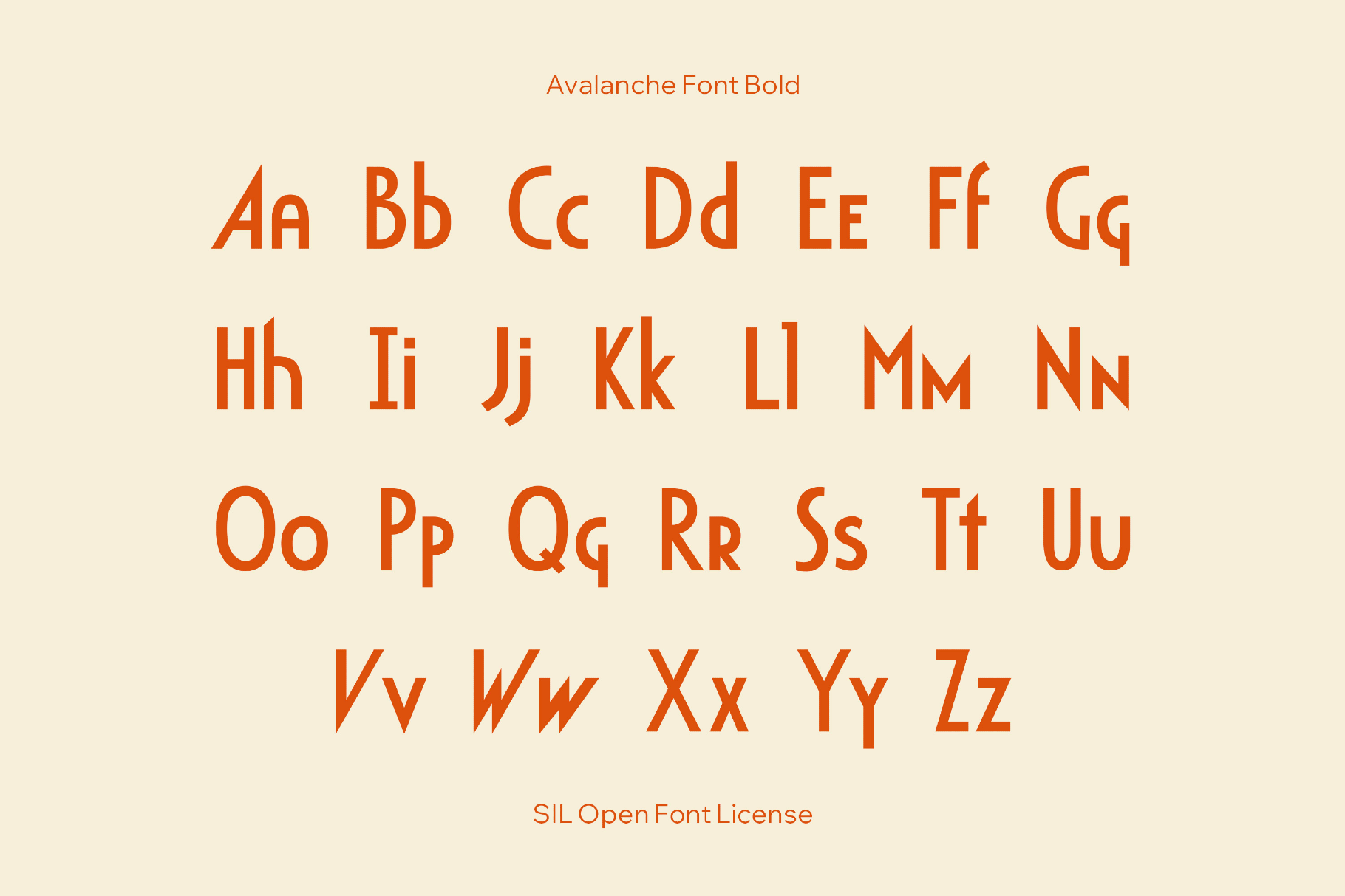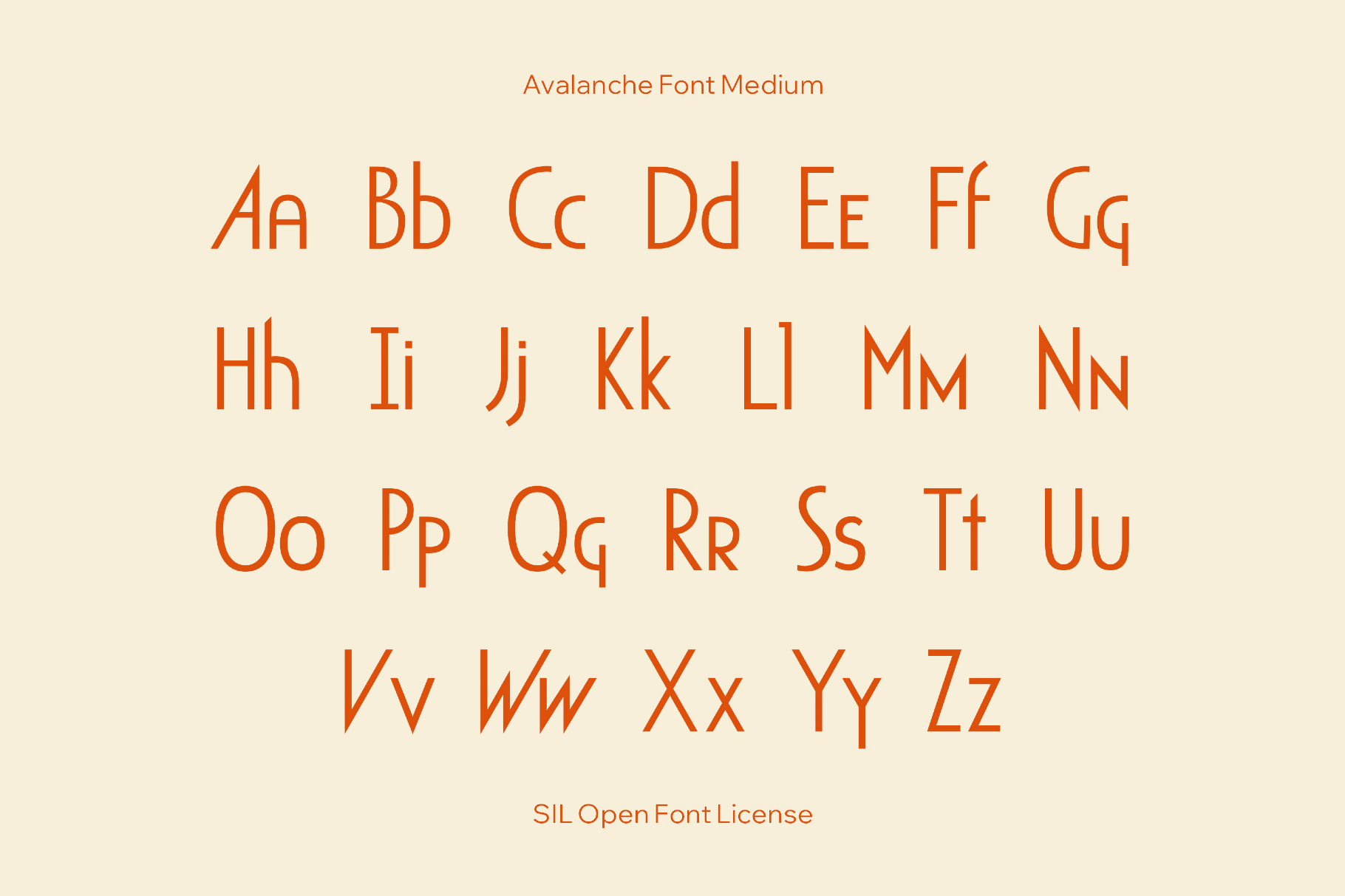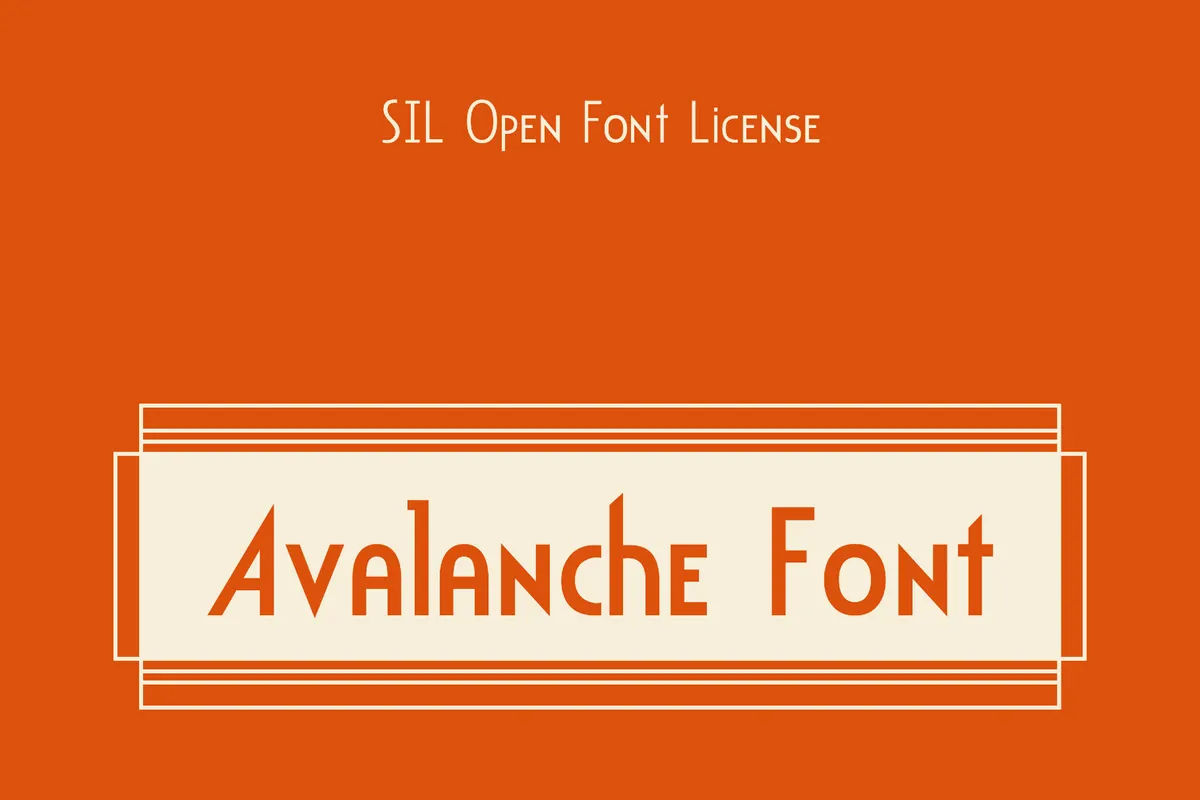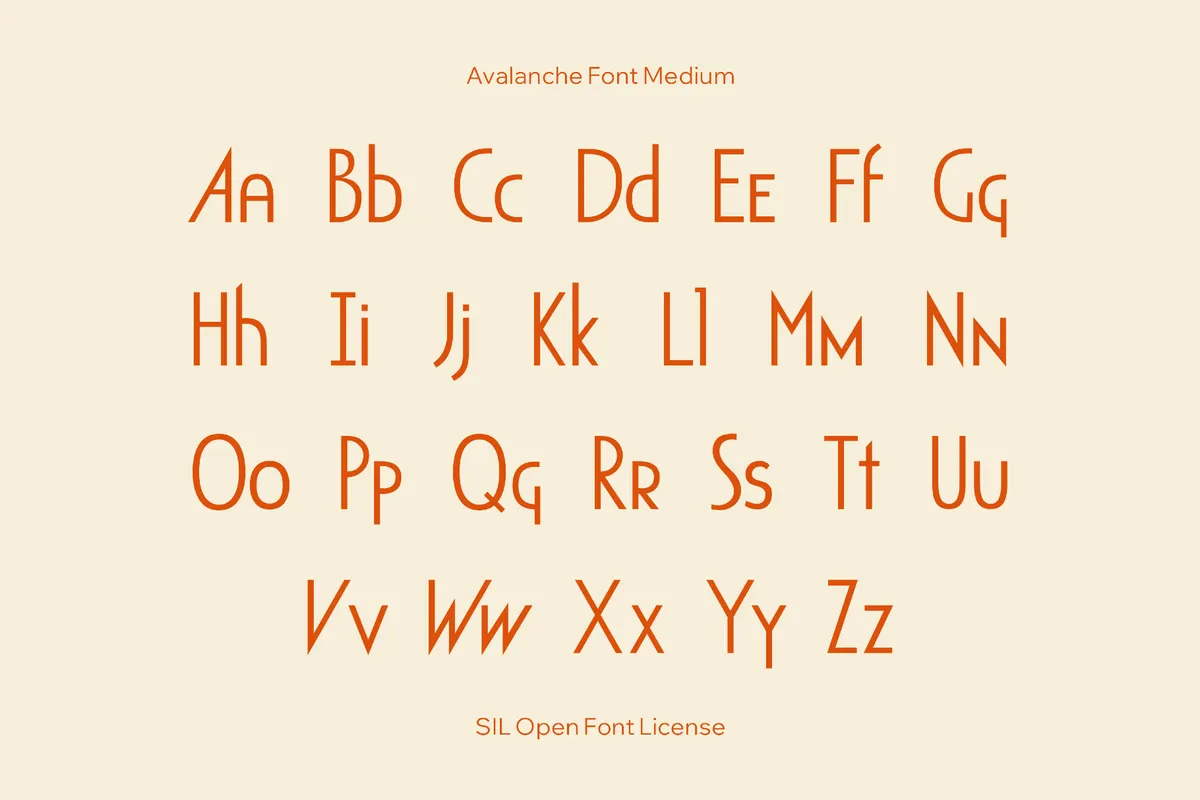
Avalanche Font
Avalanche font drives thick, slanted letterforms with the drama of 1990s extreme-sports logos and an Art Deco inflexion. Kind of a nod to Avant Garde and Peignot-style French titling. It fits high-impact sports and outdoor branding, event posters, logo wordmarks, product packaging, adventure film titles, gear and apparel graphics, magazine section headers, café and bar menus, large-format banners, and social media artwork.
• Uppercase and lowercase letters.